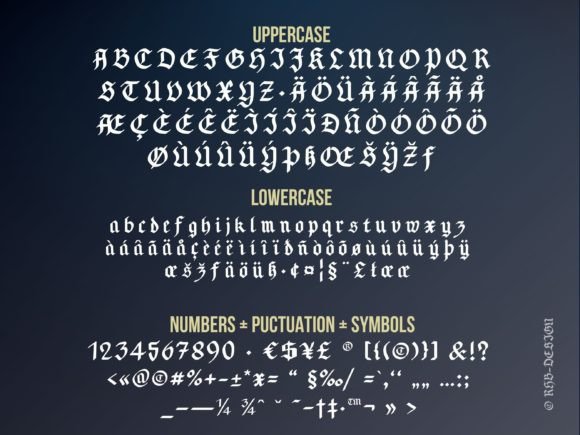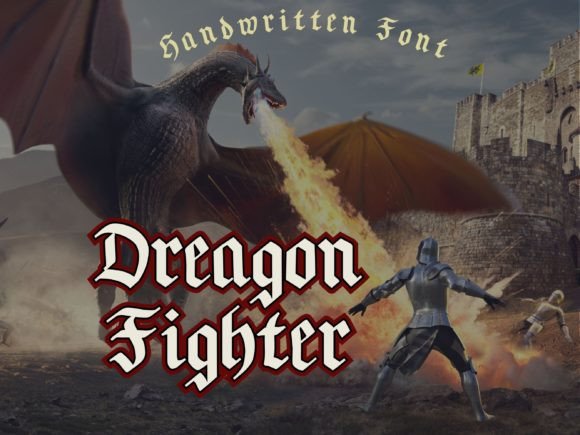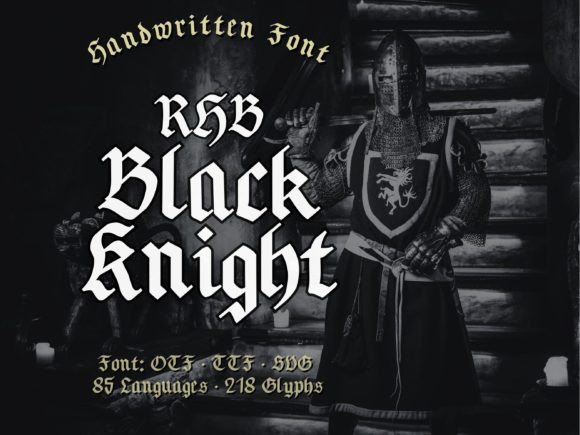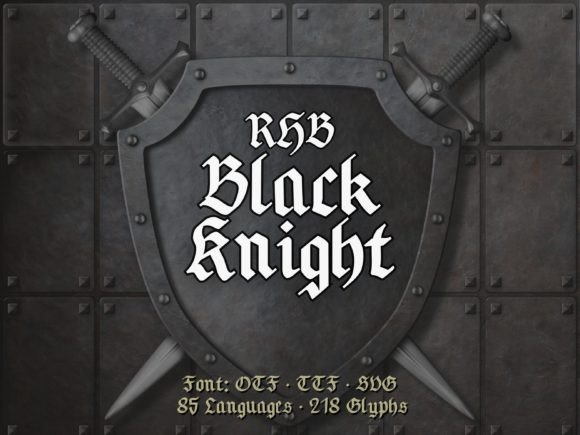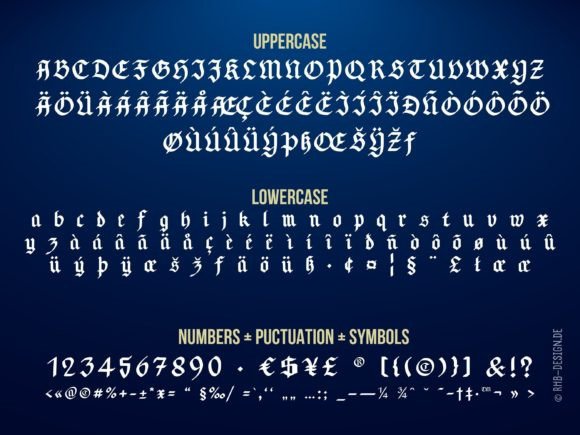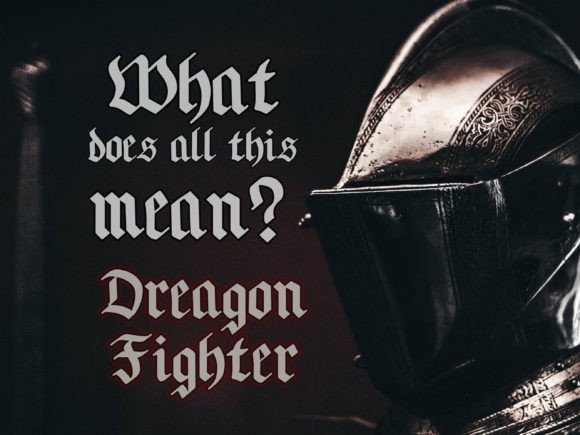
The Elegance of the Middle Ages: Unleashing the Power of Blackknight Font
Have you ever found yourself lost in the pages of a centuries-old manuscript, captivated by the intricate lettering that seemed to dance across the parchment? For designers, that same sense of wonder can be a powerful spark, inspiring new projects and ideas. And when it comes to channeling that timeless elegance, few fonts can match the majesty of Blackknight.
Blackknight Font is a masterful blend of Gothic blackletter and medieval script, imbuing any design with a sense of historical richness and sophistication. Its sharp letterforms and intricate details make it the perfect choice for projects that require a bold and distinguished aesthetic. Whether you’re crafting a luxury brand identity or designing a historical reenactment, Blackknight Font is a valuable addition to any designer’s toolkit.
Blackknight Font Key Features
- Font Family: Blackknight Font is a unique and stylish font family that includes multiple weights and styles.
- Unique Characteristics: Blackknight Font features a distinctive medieval-inspired design, with intricate details and ornate elements, making it perfect for fantasy, historical, and luxury-themed designs.
Blackknight Font Review
Overall, I was impressed with the Blackknight font, but as with any design tool, it has its strengths and weaknesses. Here’s my honest review.
- Unique aesthetic: The Blackknight font has a distinctive, medieval-inspired design that’s perfect for creating a dramatic or fantasy-themed project.
- Limited font sizes: While the font looks great at larger sizes, it can become distorted or blurry at smaller sizes, which may be a problem for some projects.
Despite some limitations, I think the Blackknight font is a great addition to any designer’s toolkit. Its unique aesthetic and high-quality vector files make it a great choice for projects that require a dramatic or fantasy-themed look. However, be sure to check the licensing terms and font sizes before using it in a commercial project.
For best results, use Blackknight Font for headings and titles to add a touch of elegance and sophistication to your design.
For best results, use Blackknight Font for titles and headings to add a sense of drama and flair.
For best results, use Blackknight Font for titles and headings to add a touch of sophistication and elegance to your presentation or document.
Blackknight Font is ideal for:
– Titles and headings for presentations, documents, and designs.
– Branding and logos to add a touch of sophistication and elegance.
– Creative and artistic projects to add a sense of drama and flair.